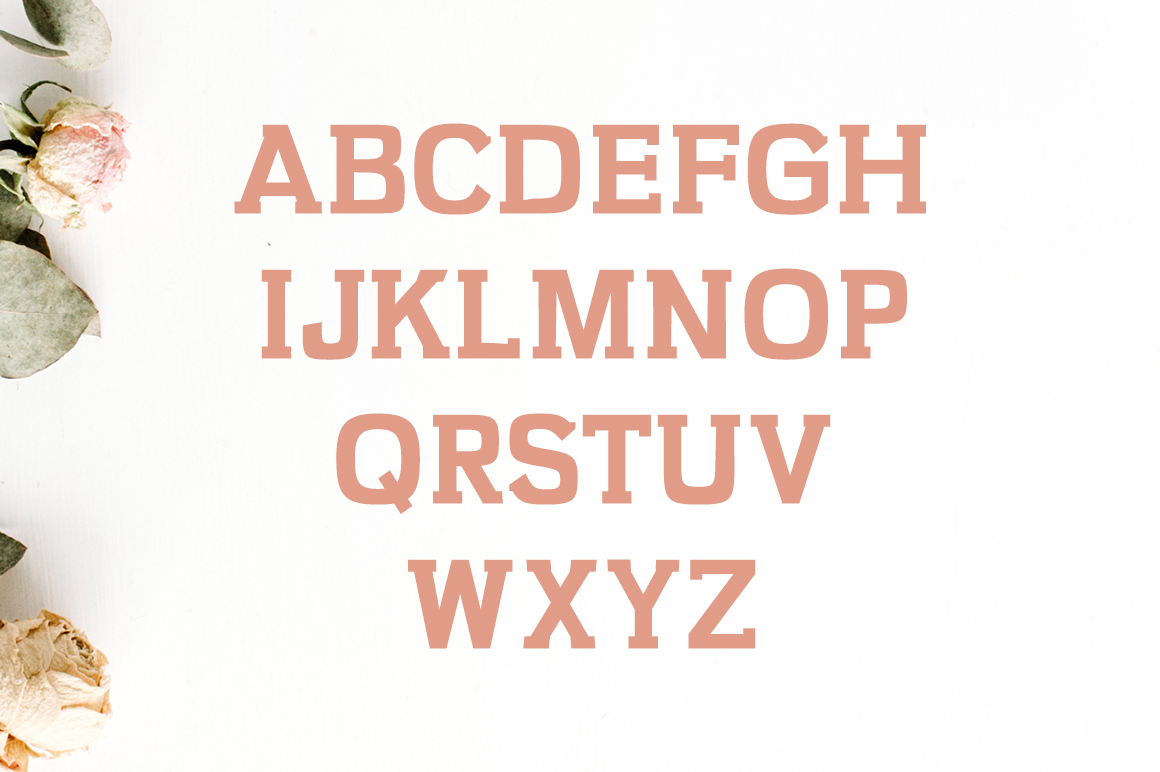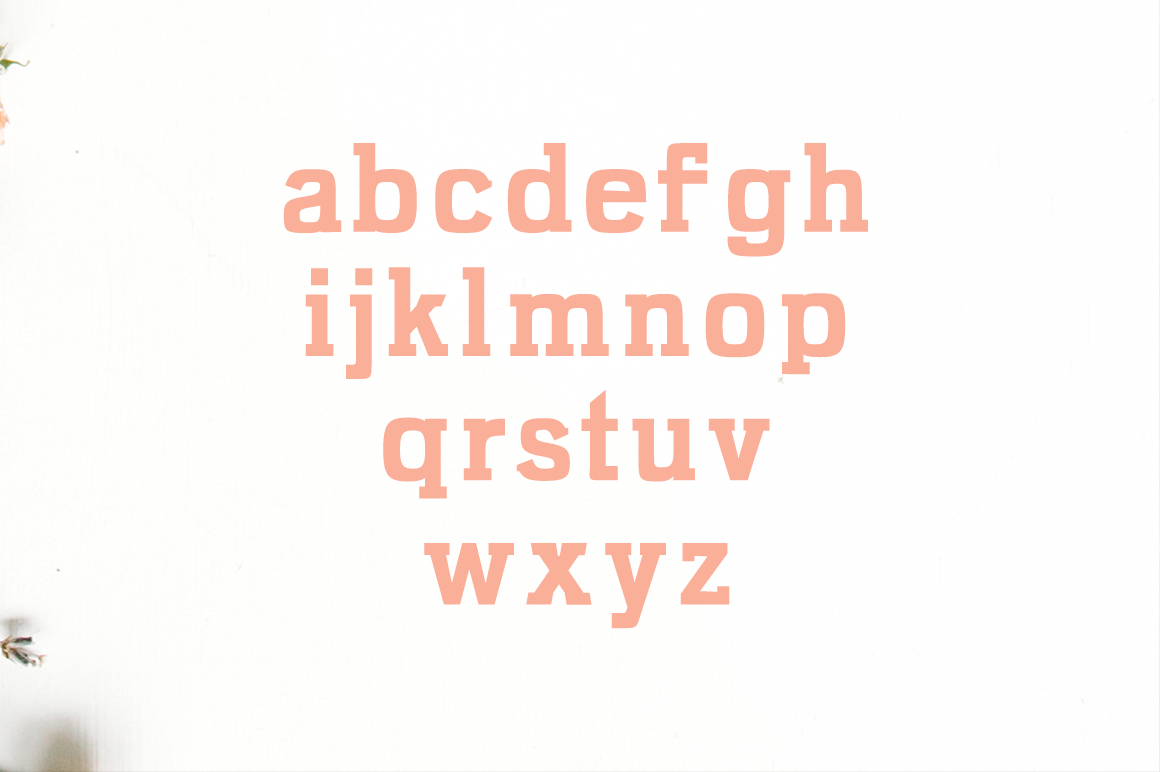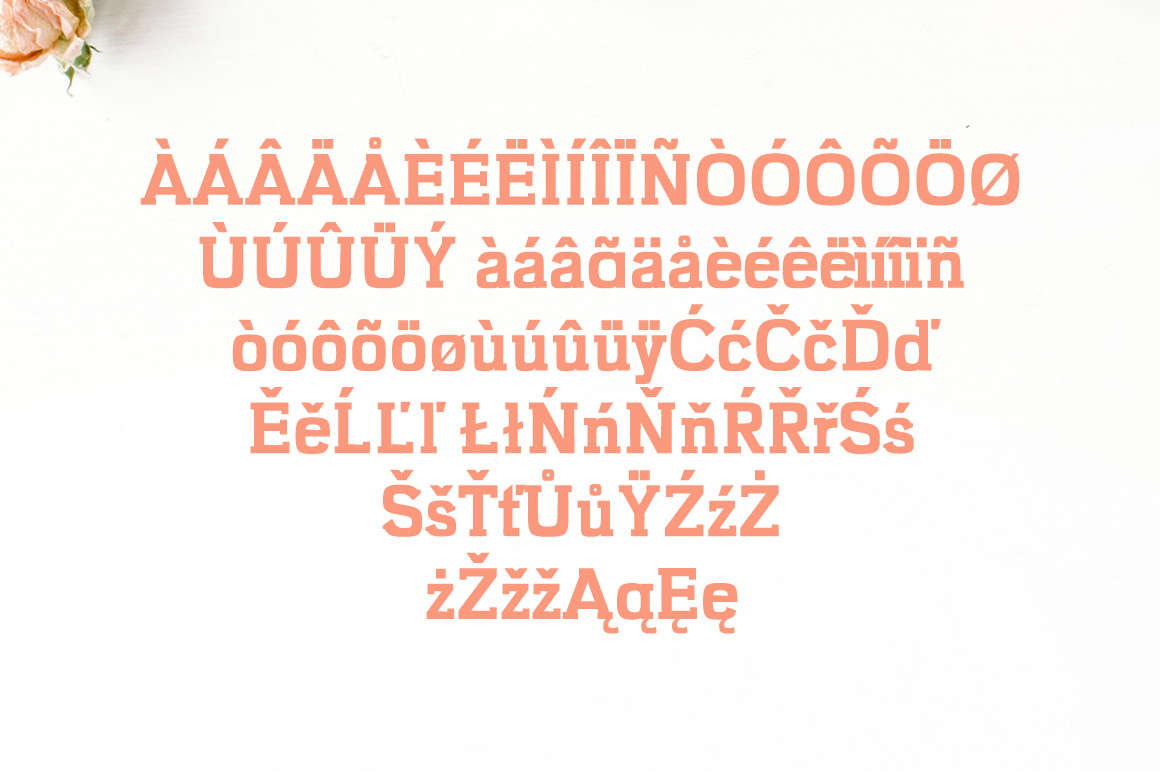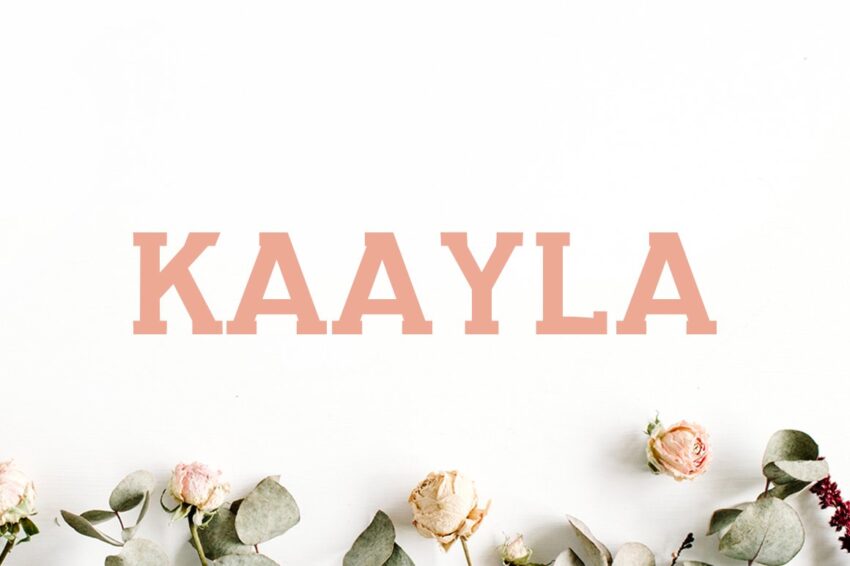
Introduction to Kaayla Font
The Kaayla Slab Serif family contains 4 weights.
It will add a stylish touch to your designs within seconds It’s very legible, making it the perfect font for advertising, print and more.
Key Features of Kaayla Font
Why Choose Kaayla Font?
Kaayla Font offers exceptional quality and versatility, making it a valuable addition to your design toolkit. Whether you’re creating for personal projects or commercial use, Kaayla Font delivers professional results.